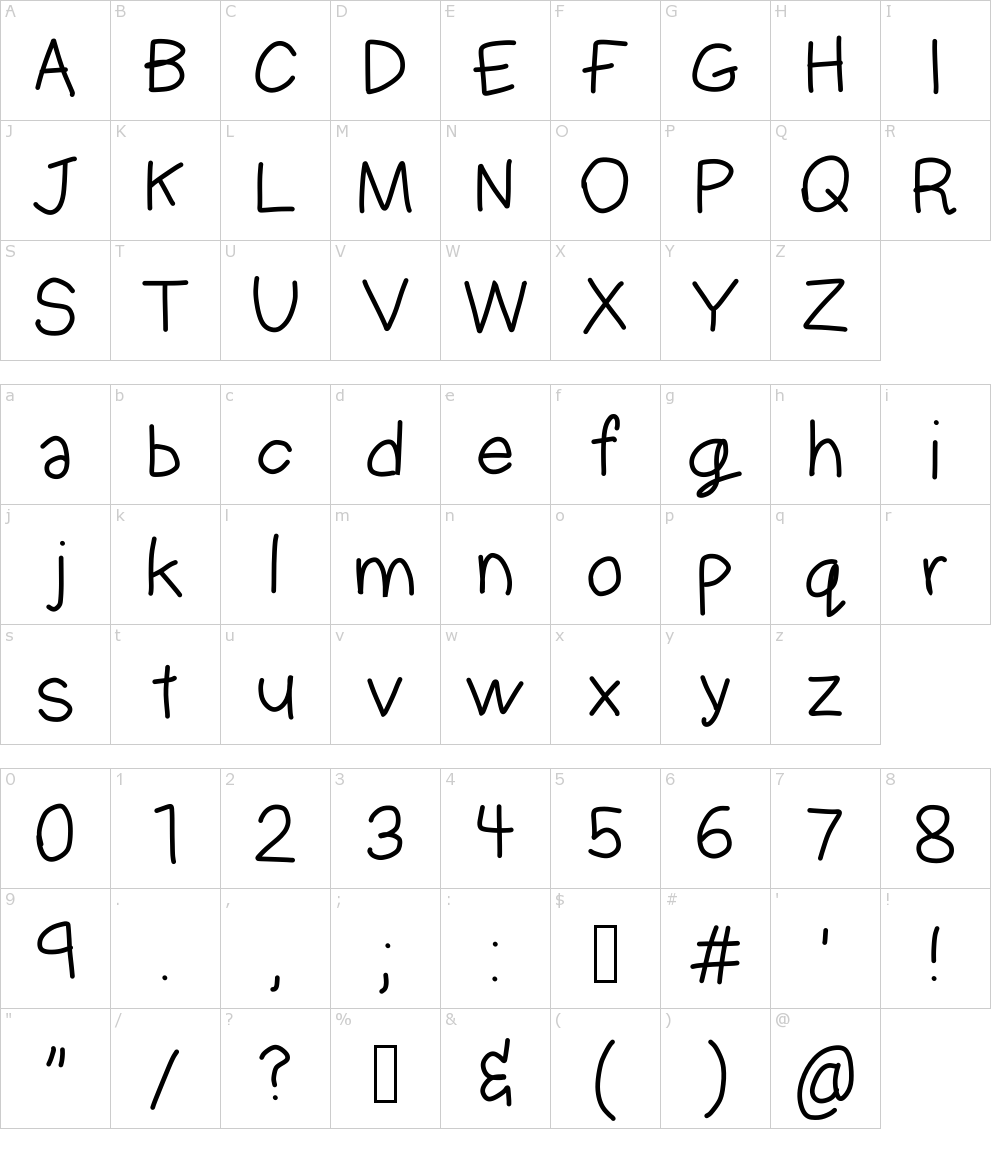
Incredible Fuzzy Fonts 2022
Fuzzy Bubbles Contains 2 Styles And Family Package Options.
The Font Is Packed With Stylistic Ligatures And Swashes.
Fuzzy bubbles font family was designed by rob leuschke and published by typesetit. Try to perform a dism command on the. Free fonts often have not all characters and signs,.
Detailed Information On The Fuzzy Font: